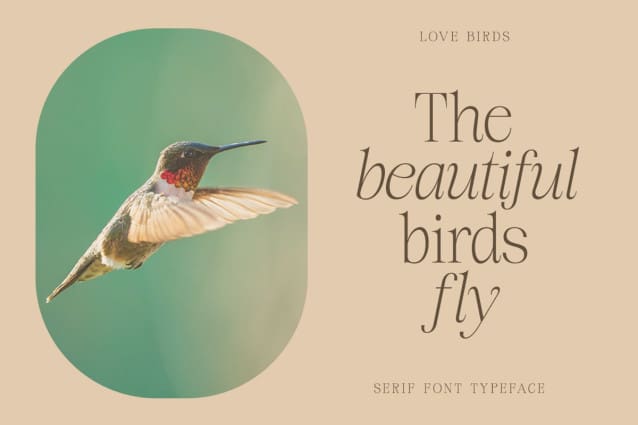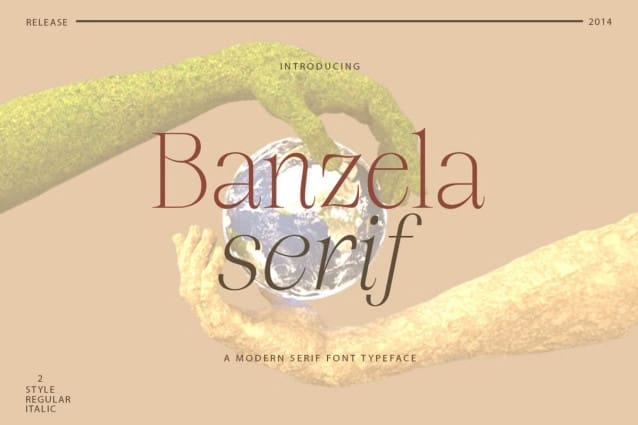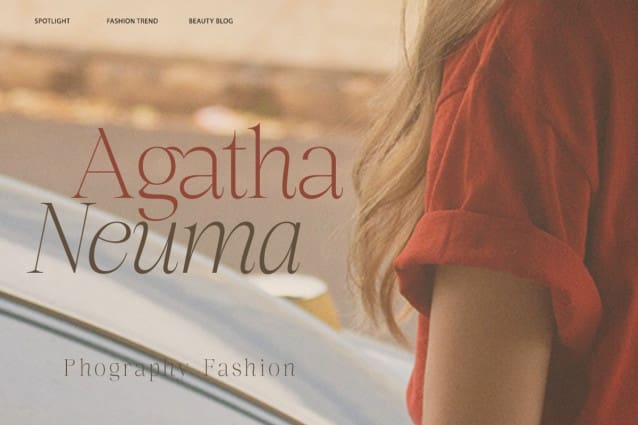
Banzela Font
Banzela Font is a serif typeface characterized by its classic and elegant style. Fonts like Banzela often have different weights on each letter, adding visual depth and improving readability. The combination of smooth and bold lines attracts attention, making it a great choice for designs that aim for an exclusive or high-end look. This font is often used for designs that aim for a formal, luxurious or classic atmosphere, making it ideal for titles, logos or brands that need a classic touch.